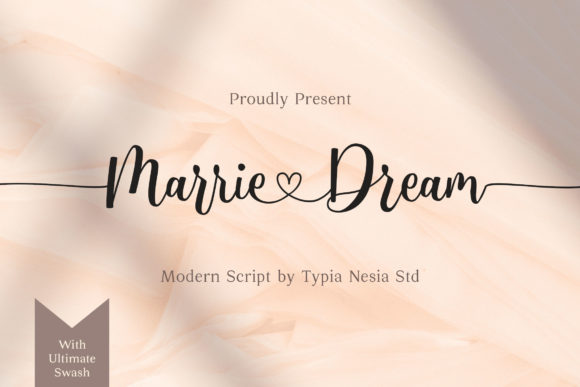
Behold the allure of Marrie Dream, a script font that dances across the digital canvas with elegance and charm. Its delicate strokes, reminiscent of a heartfelt love letter, evoke a sense of timeless romance and sophistication. Crafted with meticulous attention to detail by the renowned Typia Nesia, Marrie Dream stands as a testament to the artistry and passion that defines true craftsmanship.
Step into a world of visual enchantment, where Marrie Dream transforms your website into a captivating symphony of words. This exquisite font possesses an innate ability to elevate any creation, adding a touch of magic to every design. Its graceful curves and whimsical flourishes lend an air of effortless beauty and charm, leaving an indelible mark on the hearts of your audience.
Marrie Dream is a versatile font, adapting seamlessly to a myriad of design endeavors. Whether you seek to craft alluring logos that exude elegance, captivating social media posts that ignite engagement, or stunning branding materials that leave a lasting impression, Marrie Dream emerges as the perfect companion. Its versatility knows no bounds, making it an indispensable asset for designers, content creators, and visionaries alike.
Unlock the limitless possibilities that await with Marrie Dream. Let your imagination soar as you craft enchanting wedding invitations that capture the essence of love and commitment. Design breathtaking posters and flyers that command attention and leave a lasting impression. Transform mundane presentations into visually captivating experiences, captivating your audience with every slide. The possibilities are endless, bound only by the limits of your creativity.
Embrace the beauty of Marrie Dream and watch as your website blossoms into a captivating oasis of visual delight. Allow this enchanting font to weave its magic, enchanting your visitors with its timeless charm and elegance. Marrie Dream is more than just a font; it's an invitation to embark on a journey of creativity and self-expression. Seize this opportunity to elevate your digital presence and leave an indelible mark on the hearts of your audience.